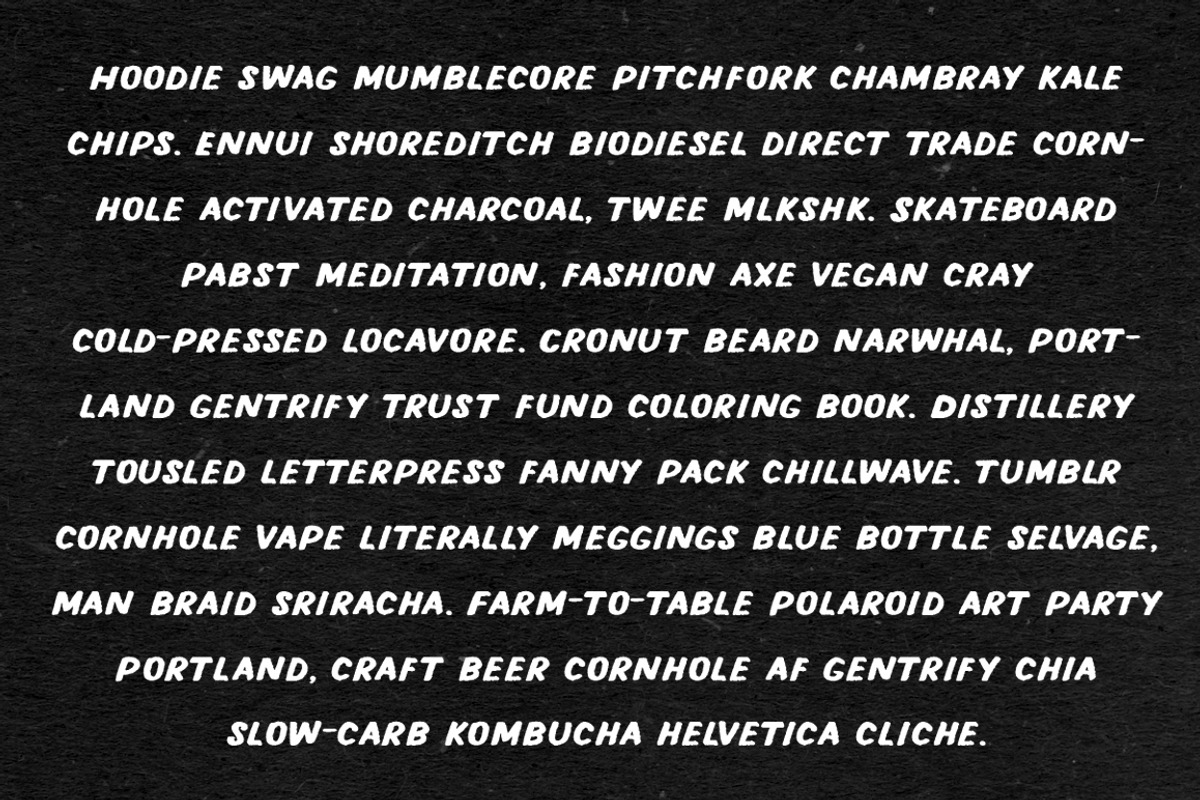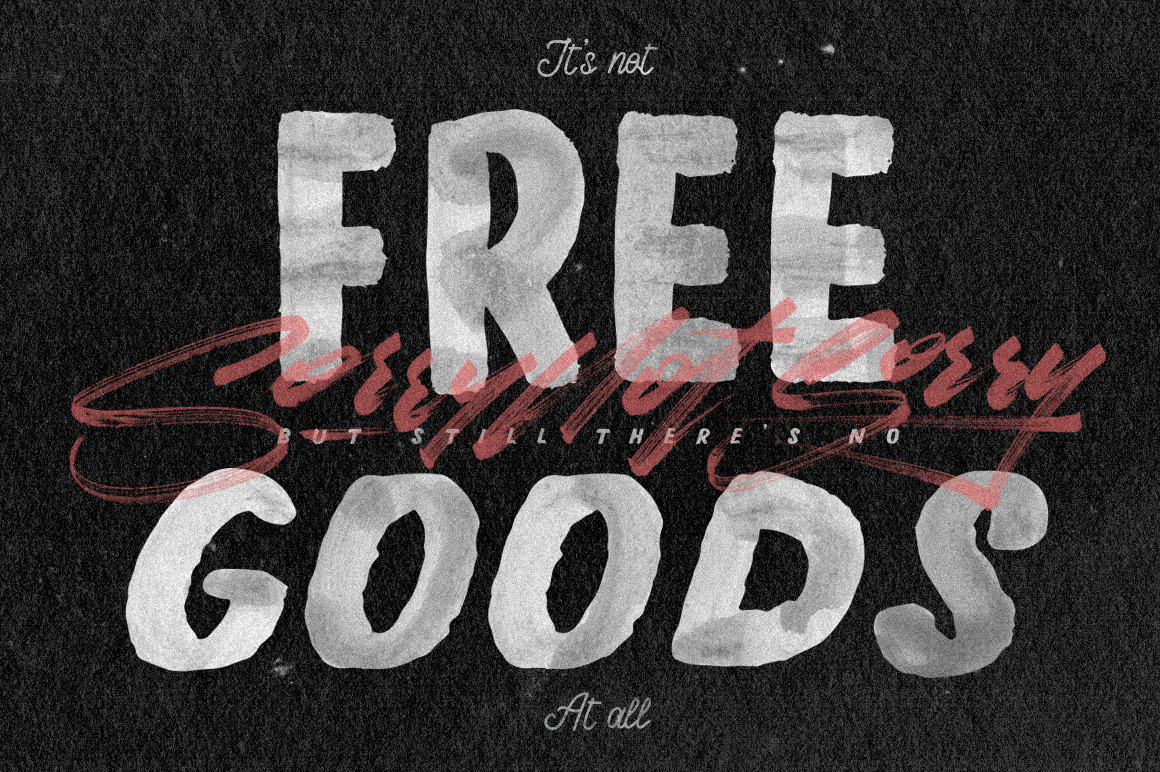
Sorry Not Sorry : 3in1 Fonts
Well actually its a Sorry Not Sorry - 3in1 Fonts, a super standard ordinary trio font that you've been known before and nothing special in it. Are we done enough? Okay i'll show you the
Boldy Beetle : A double bold hard-knocker font more than your usual font. Its a handwritten sans-serif font with brushy feels but not textured, just a rough edges but its all good to go, you're still look tough with it i guaranteed.
Monolayn Script : A skinny slant monoline script just like an usual style that you're eyes catch nowadays, but its written using a round marker, because clean monolines are too mainstream (i guess).
Slant Thug : A slant thick and (not so) thin sans-serif font, why its thug? well life is just a life without thug, you name it.